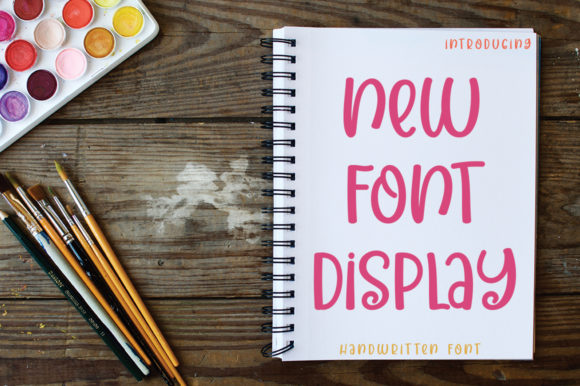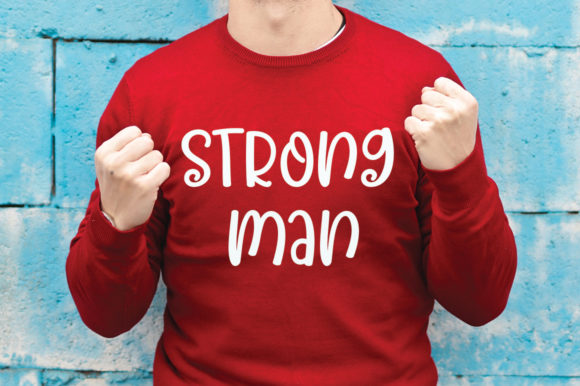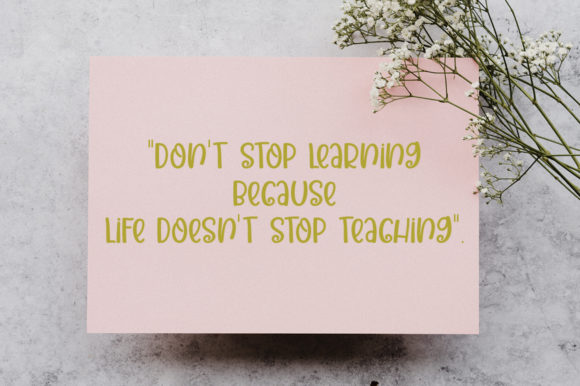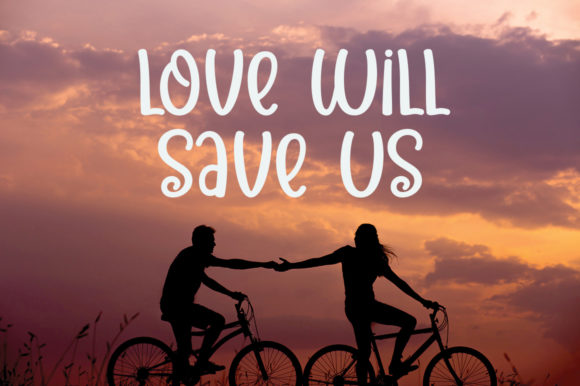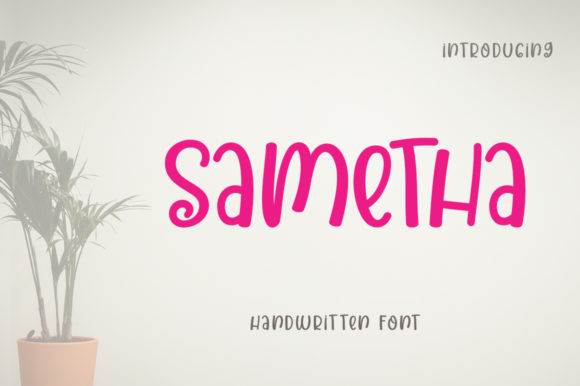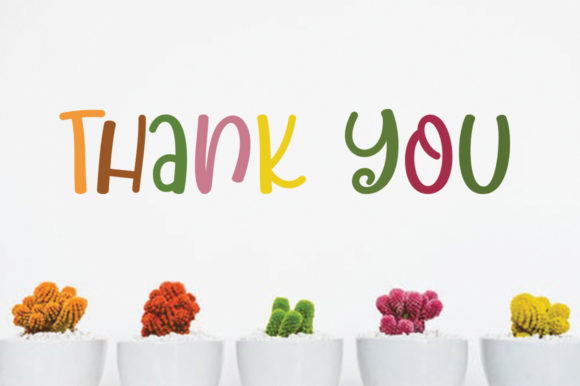
New Font Display Font
About New Font Display Font
New Font Display is a font that exudes cuteness and charm in its script design. With its adorable and delightful style, this font is perfect for adding a touch of playfulness and creativity to your designs.
The cute script style of New Font Display brings a sense of whimsy and appeal to your creations. Each letter carries the artistic touch of script writing, making your work stand out with a touch of contemporary flair and sweetness.
With New Font Display as your creative tool, you have the freedom to make your ideas even more realistic and explore various design possibilities. Its versatility allows it to seamlessly enhance your projects, infusing them with a sense of cuteness and charm.
Embrace the cute and playful vibe of New Font Display and witness how it transforms your designs into captivating and adorable works of art. Its script appearance adds a touch of authenticity, making your creations truly eye-catching and filled with a sense of uniqueness and style.
Whether you’re working on social media posts, invitations, or any other project that calls for a cute touch, New Font Display is the font that adds that extra flair and appeal to your creations. Let it be the font that sparks your inspiration and enhances your designs with its cute and delightful script appearance.
Experience the magic of New Font Display and witness how it elevates your creative projects, making them truly exceptional and filled with a sense of creativity and charm. Let New Font Display be the font that brings a smile to your designs and turns them into wonderful and delightful pieces of art.